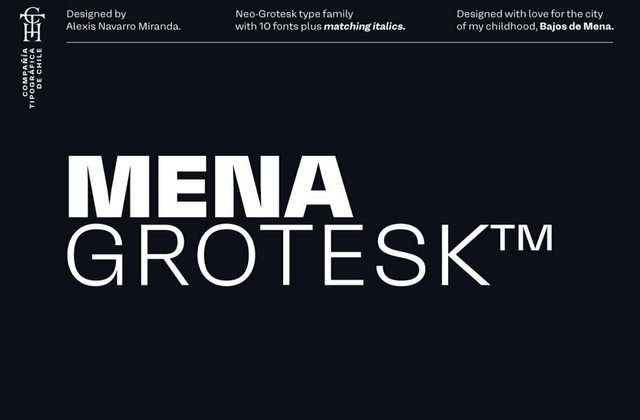
Mena Grotesk Font
This Mena Grotesk Font is perfect for branding projects, logo design, magazine layouts, website headers, business cards, advertising campaigns, product packaging, editorial design, mobile app interfaces, social media graphics, and corporate identity systems.
What makes this Mena Grotesk Font exciting is its perfect balance between modern minimalism and exceptional readability. The font features clean geometric shapes with subtle humanistic touches that create a sophisticated yet approachable character. Its versatility allows designers to use it across various media while maintaining consistent brand identity and visual impact.
The Mena Grotesk Font family includes multiple weights ranging from Light to Bold, along with their corresponding italic variants. This comprehensive font family offers designers the flexibility to create hierarchical typography systems with proper contrast and emphasis throughout their design projects.
Whether you're working on a cutting-edge tech startup's visual identity or a luxury brand's marketing materials, Mena Grotesk Font Free Download provides the typographic foundation you need. This font's contemporary aesthetic makes it an ideal choice for forward-thinking brands that want to communicate professionalism while maintaining a fresh, modern appeal.
The geometric construction of Mena Grotesk Font draws inspiration from Swiss design principles, combining functionality with aesthetic excellence. Its letterforms feature optimized spacing and kerning that ensure optimal legibility across all sizes, from large display headlines to small body text in digital and print applications.
Professional designers appreciate how Mena Grotesk Font performs exceptionally well in both digital environments and traditional print media. The font's technical specifications include extensive language support, making it suitable for international projects and multilingual publications that require consistent typography across different character sets.
The clean lines and balanced proportions of Mena Grotesk Font make it particularly effective for creating memorable brand experiences. Its neutral yet distinctive character allows it to complement various design styles without overwhelming the overall visual composition, making it a valuable addition to any designer's font library.